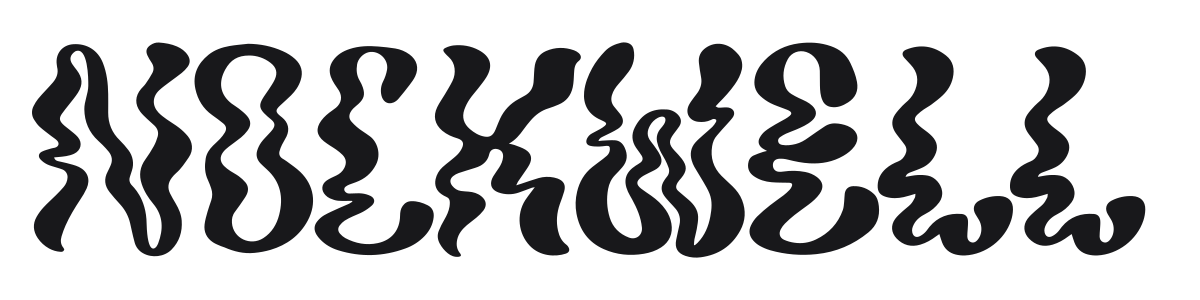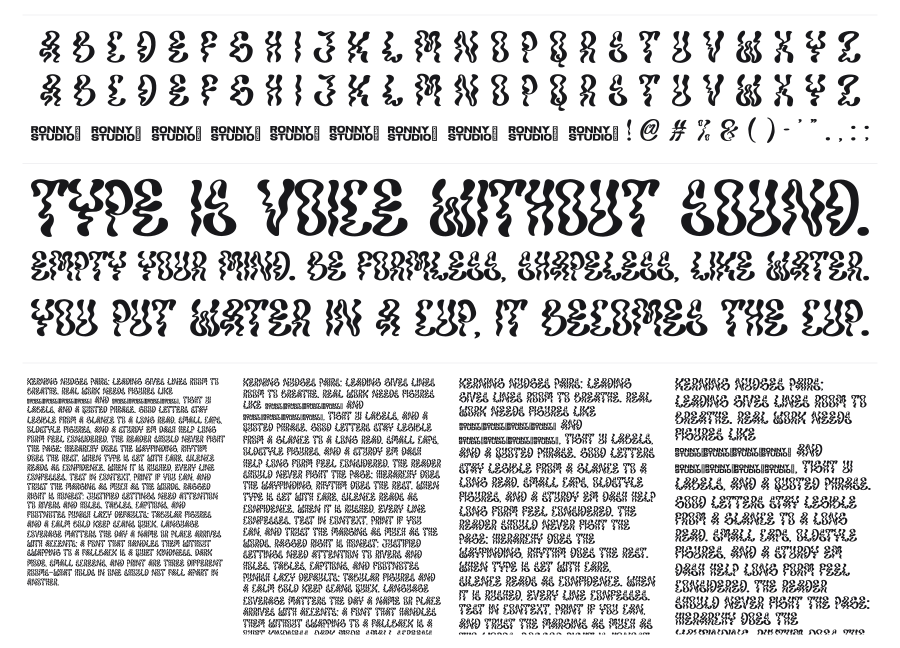
Nockwell
Nockwell is a heavy psychedelic display font with thick, undulating strokes that ripple like liquid across every character. The wavy, organic outlines channel classic 1960s-70s counterculture poster lettering with a bold, almost hypnotic energy. It works at large sizes where the fluid movement of the forms can breathe.